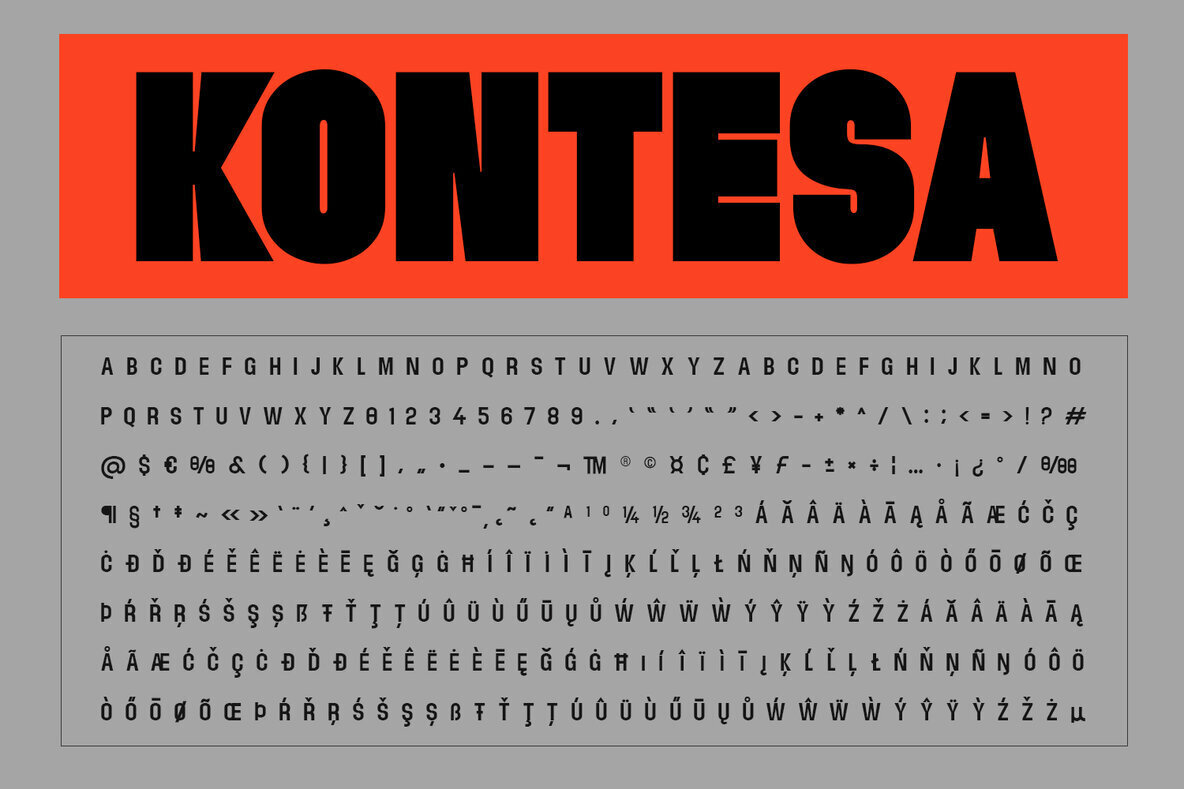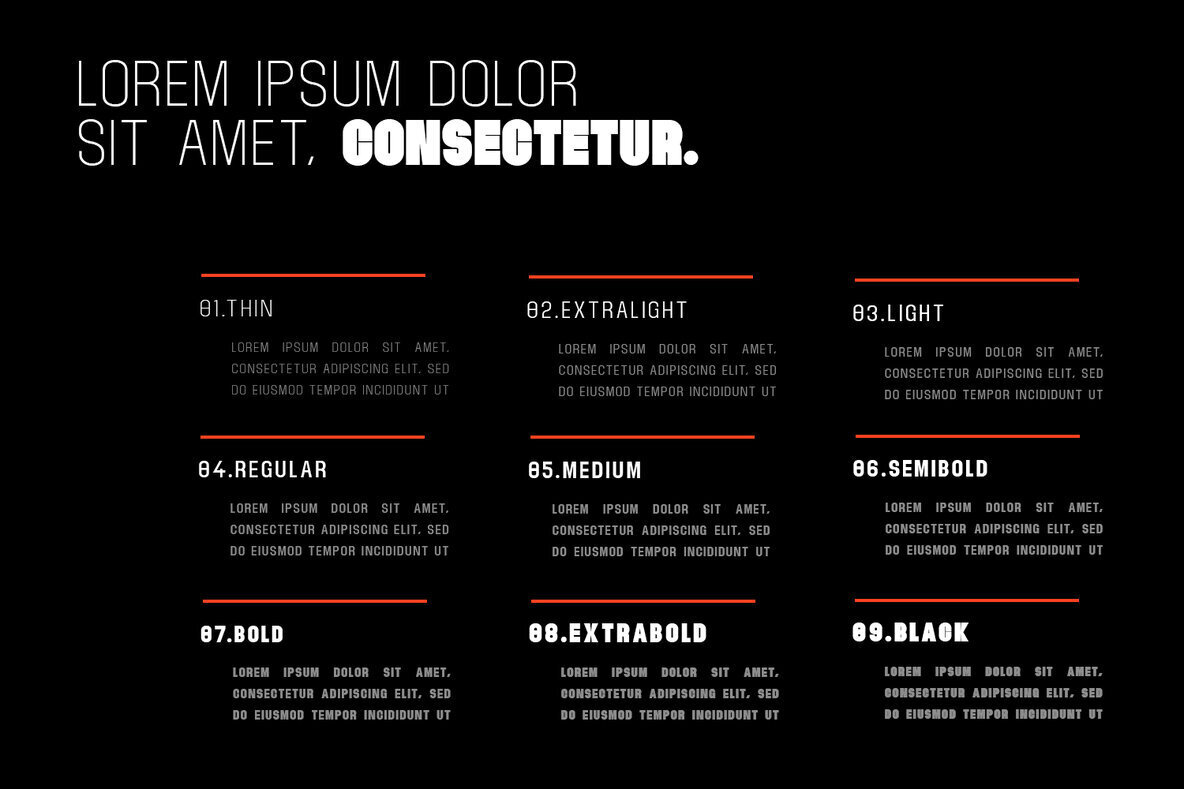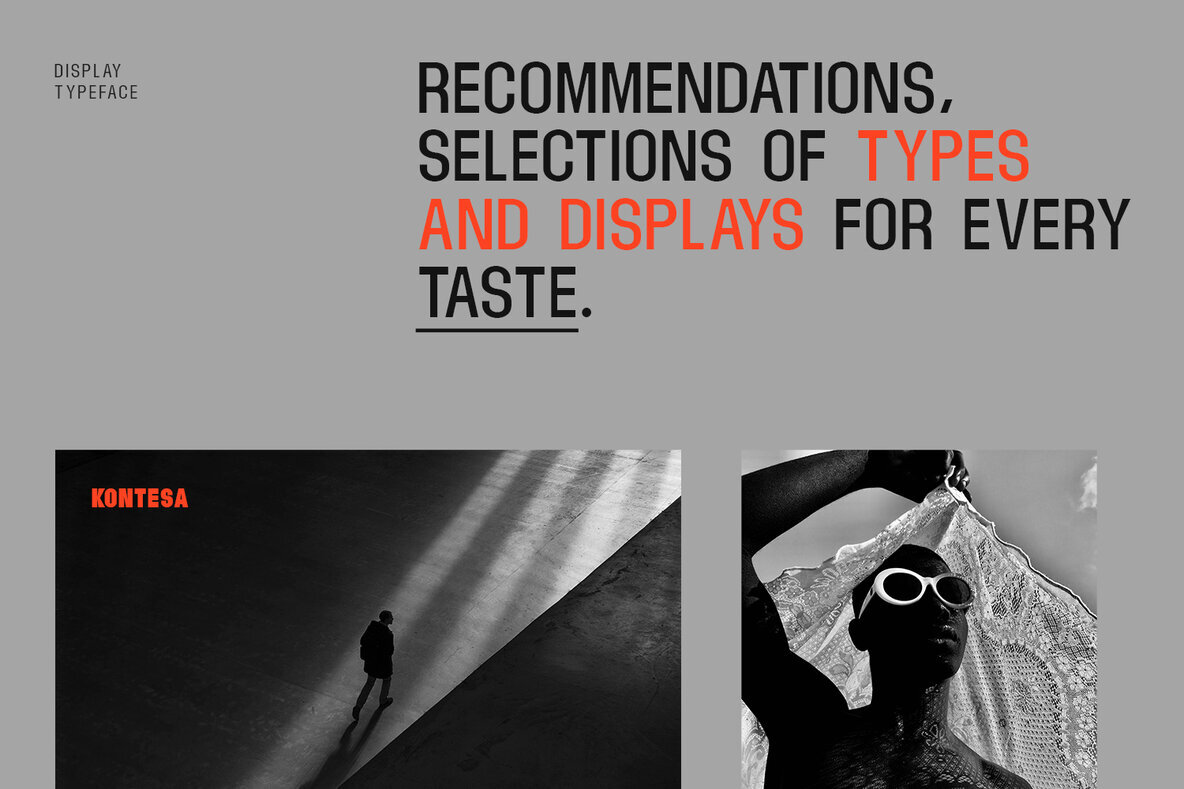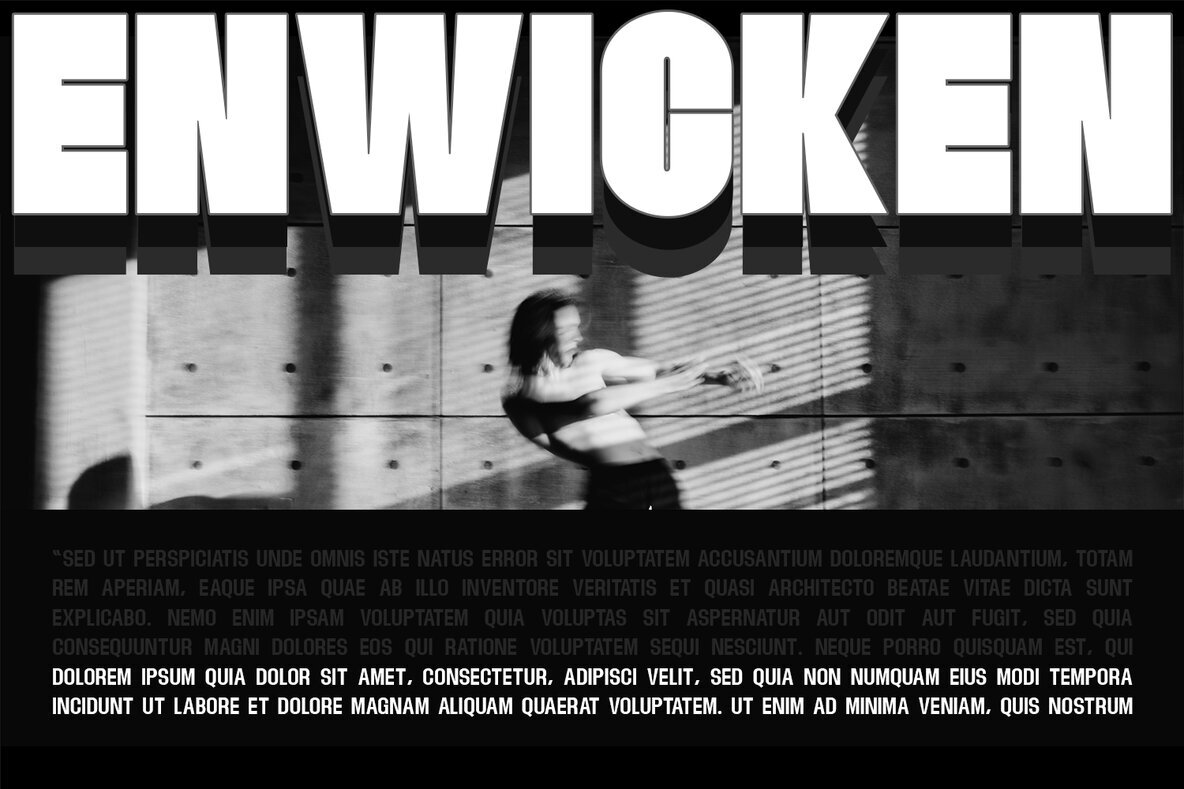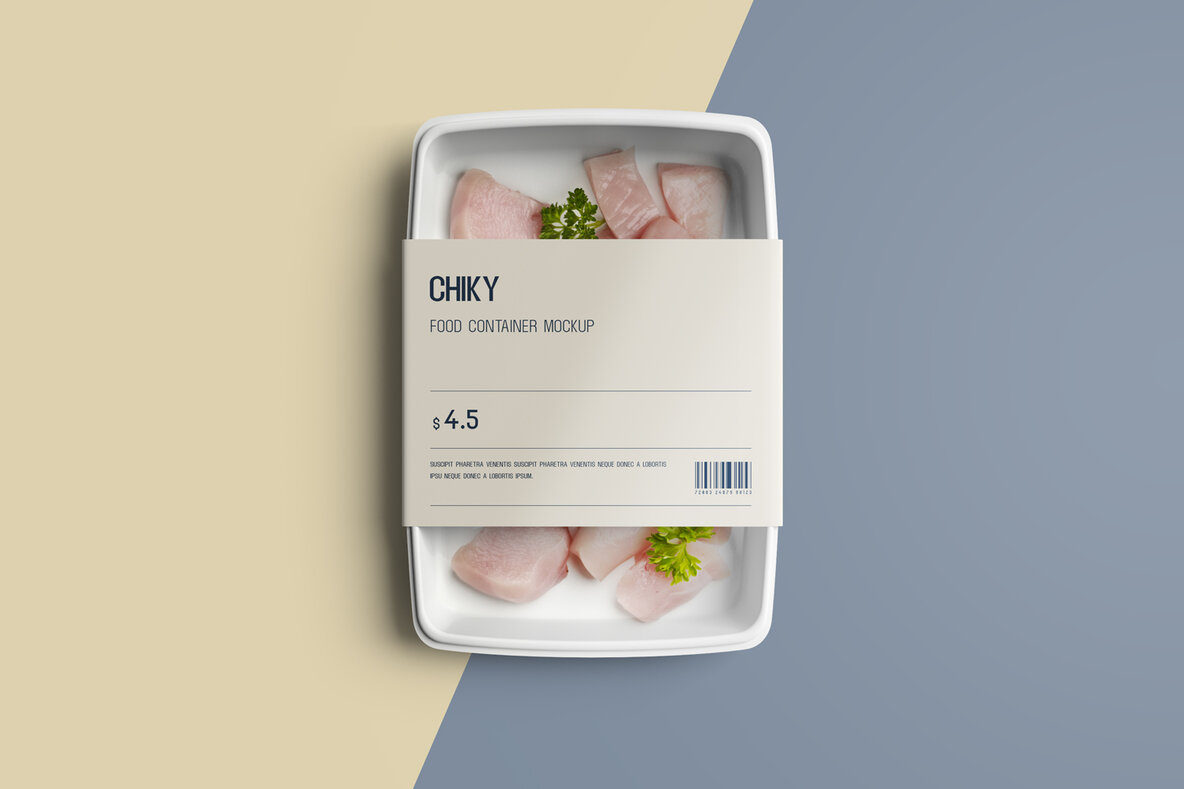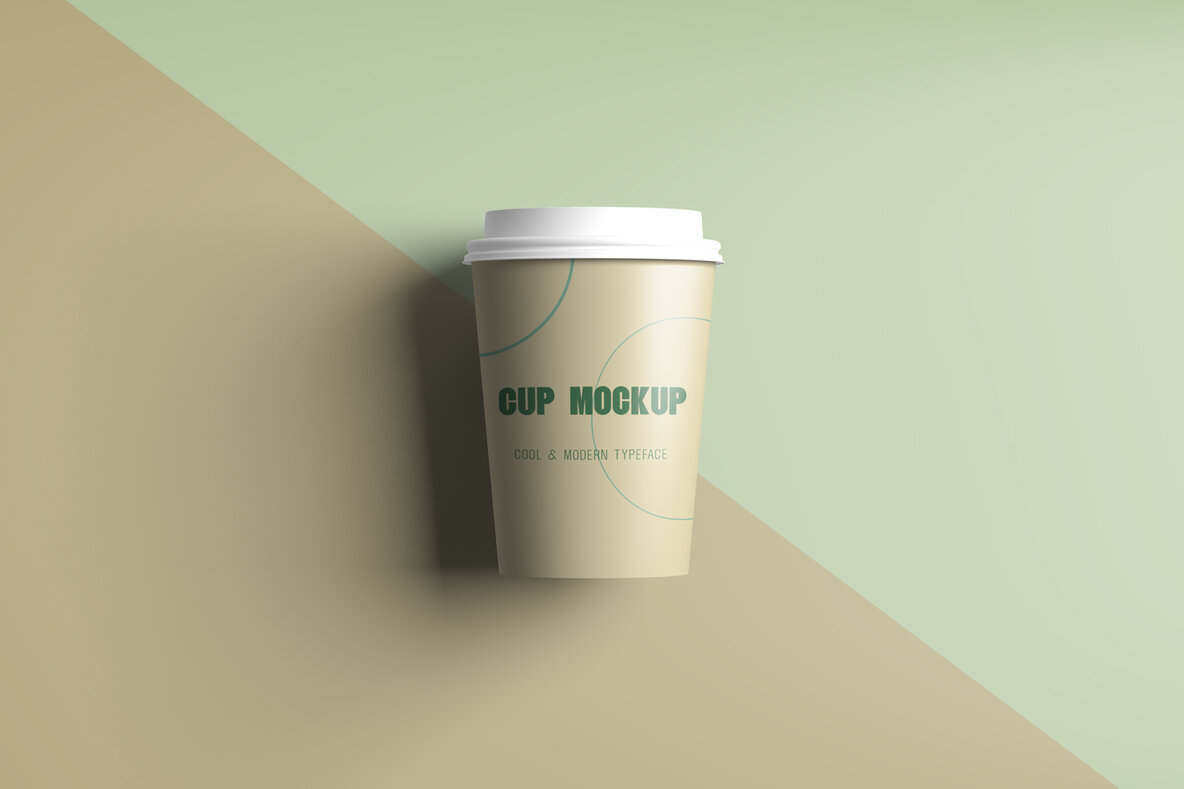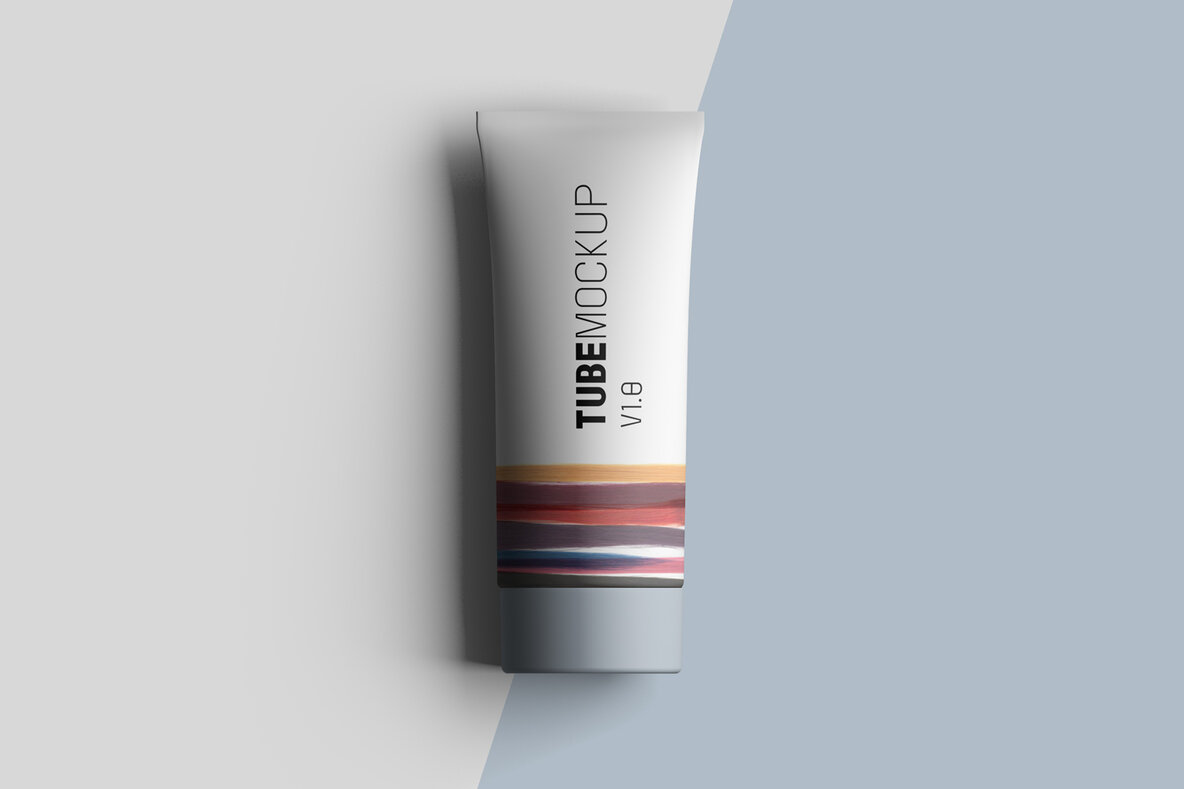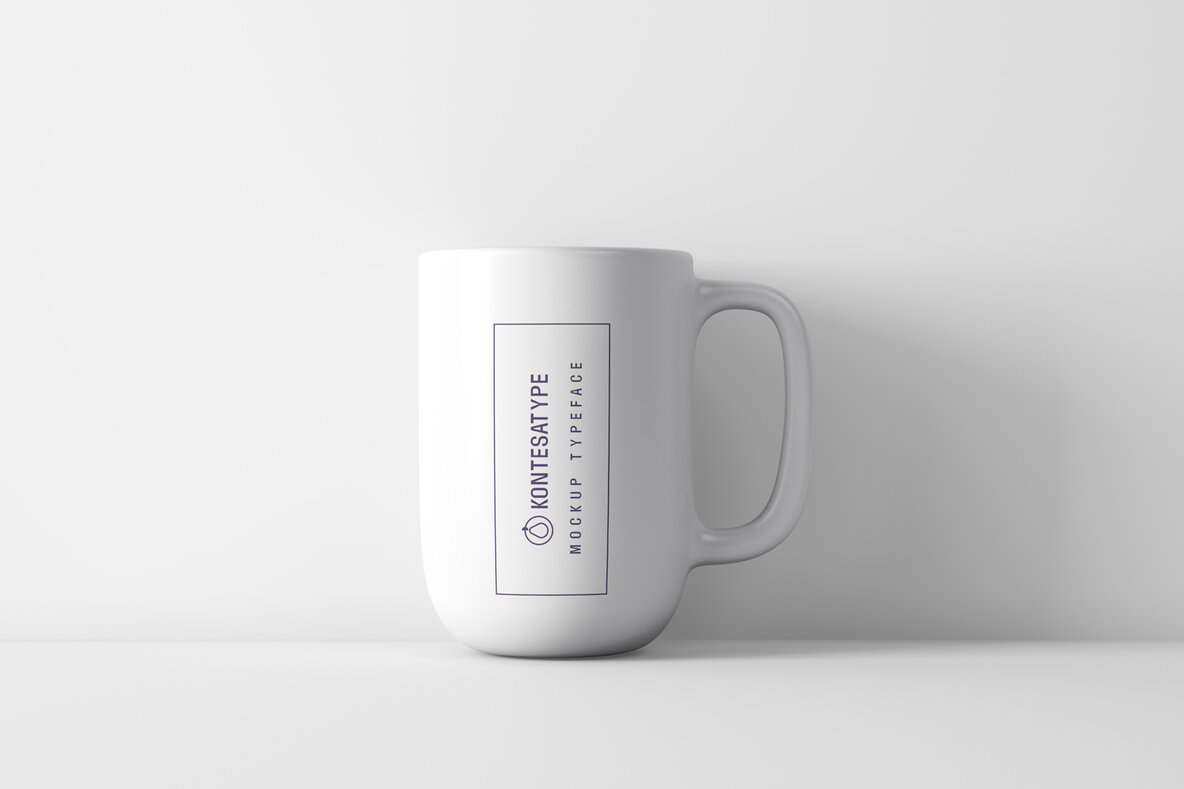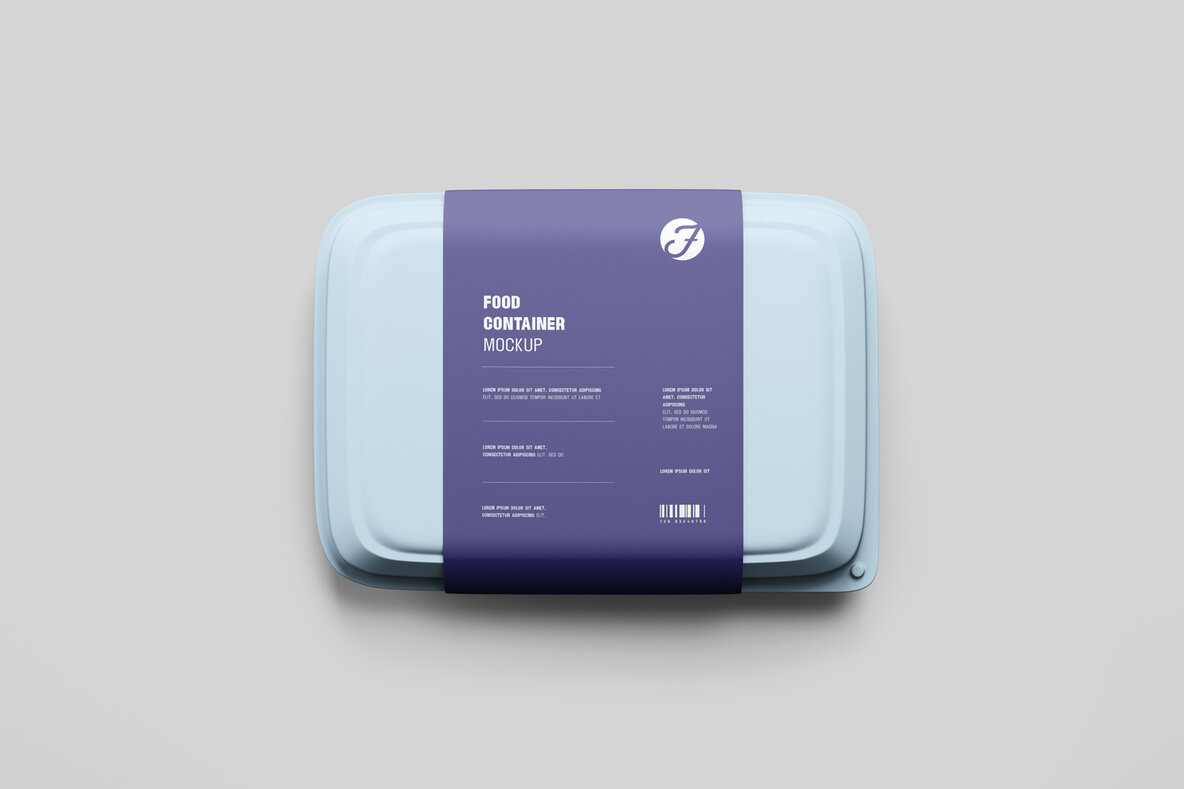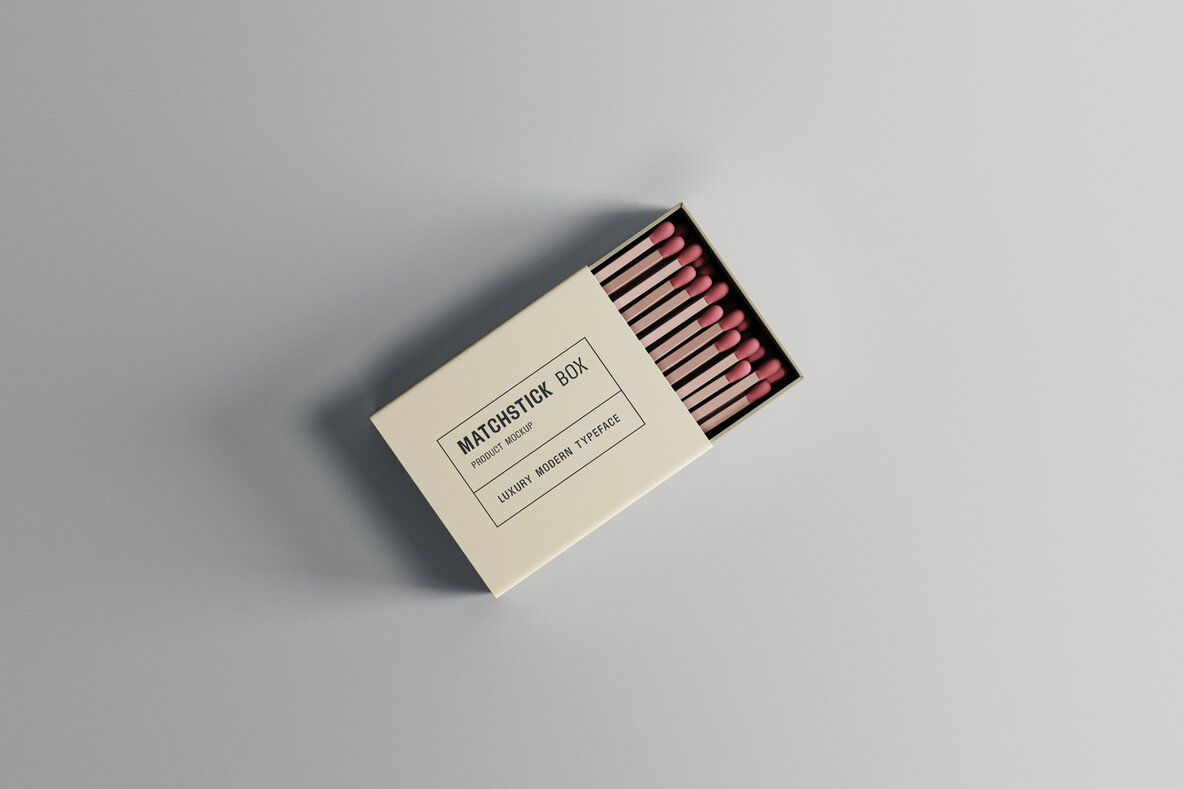
Kontesa Typeface Font
The Kontesa typeface by FoxType Co seamlessly blends elegance with contemporary flair, making it ideal for logos, magazines, and cinematic endeavors. This distinctive typeface is versatile, lending itself well to branding, headlines, captions, paragraphs, and posters, striking a balance between impact and readability. Features:Kontesa Typeface: Elegant and Modern Aesthetics